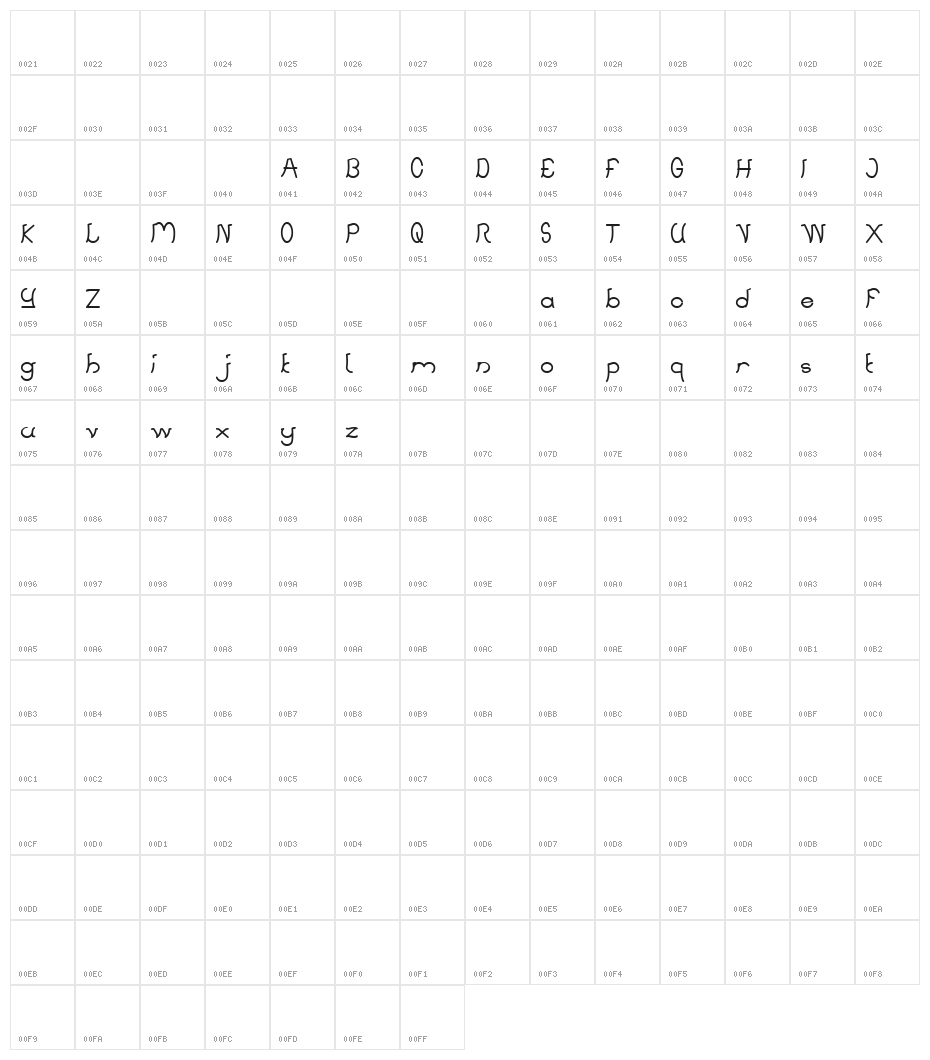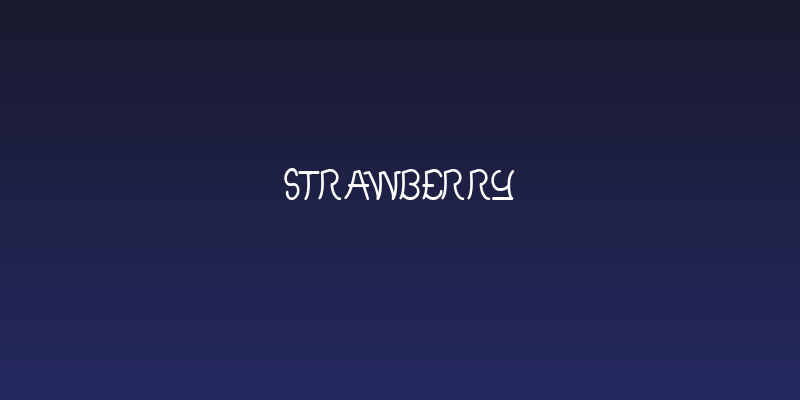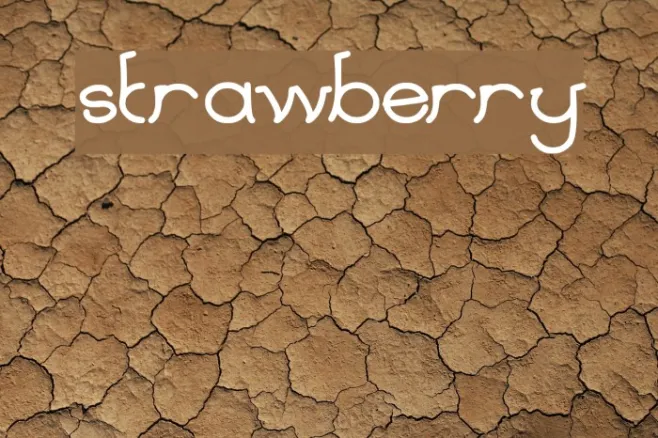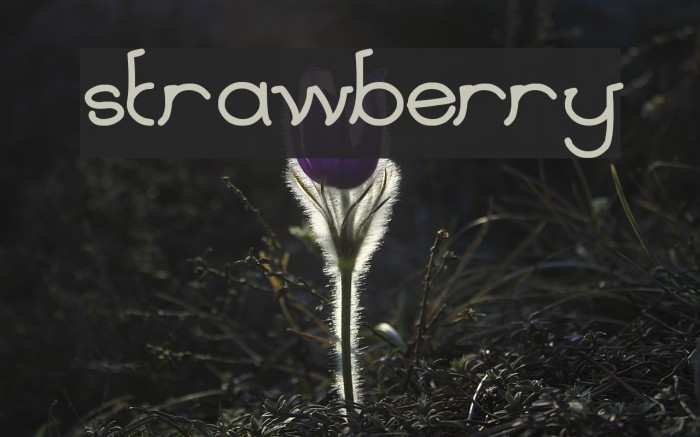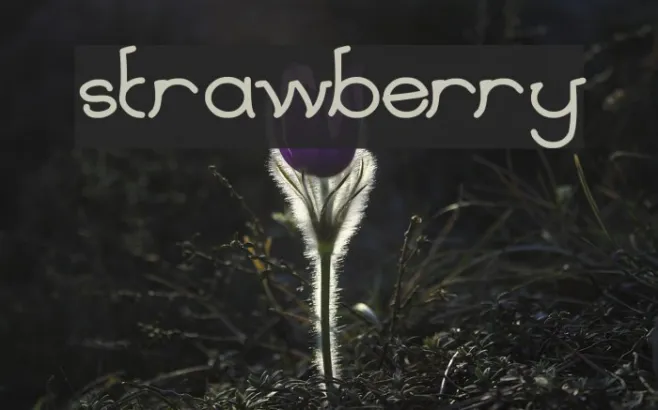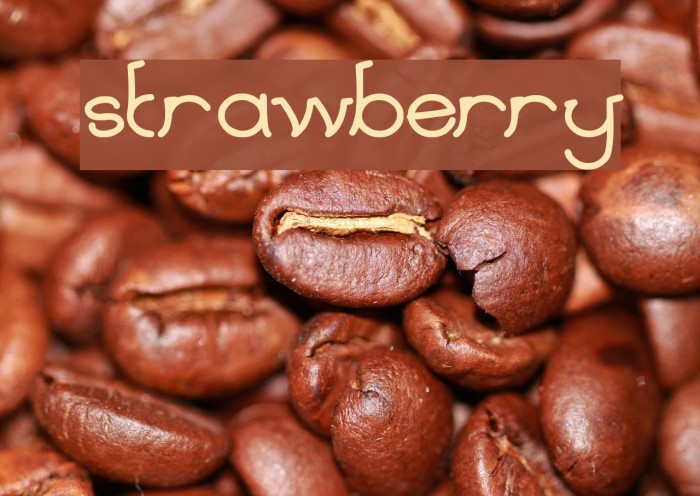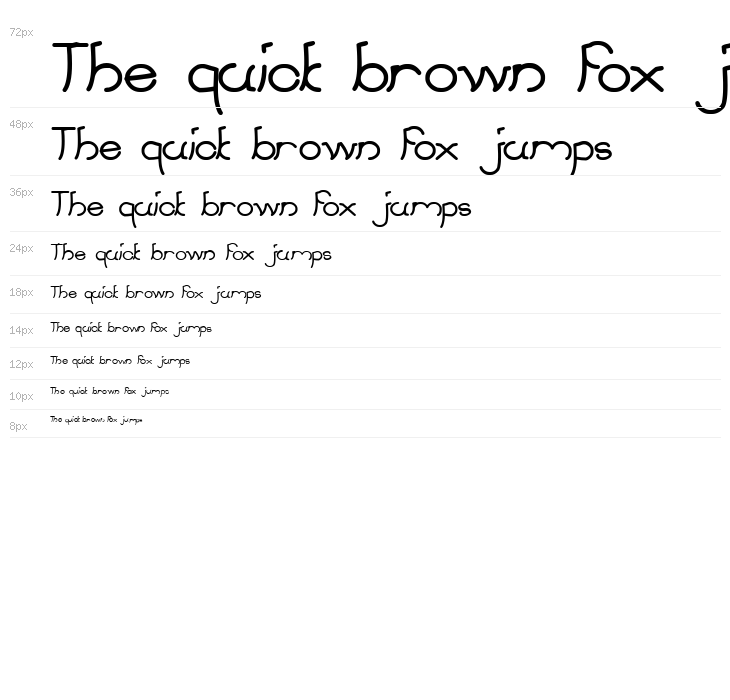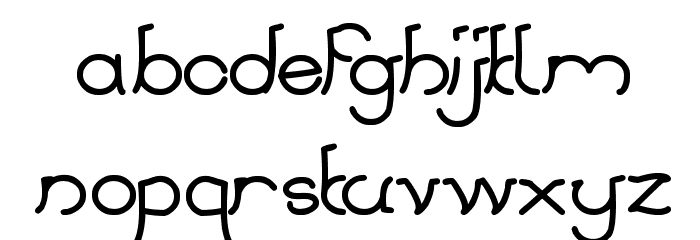
strawberry Font
strawberry Description
This font features a playful and whimsical design, characterized by its unique, hand-drawn appearance. The letters have a slightly irregular shape, giving them a casual and friendly feel. The strokes are consistent in thickness, providing a uniform look across all characters. The uppercase letters are bold and prominent, while the lowercase letters maintain a similar style with a slightly more delicate touch. The numbers and special characters follow the same design principles, ensuring a cohesive appearance throughout. This font is perfect for projects that require a touch of creativity and informality.